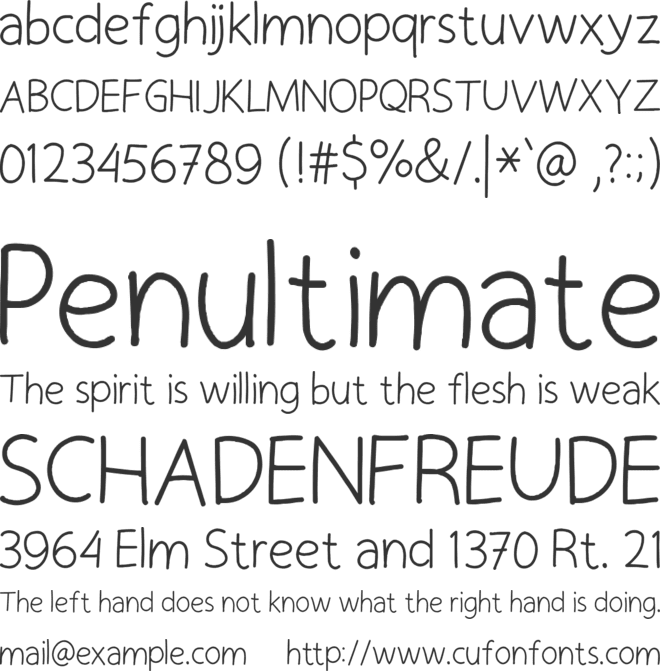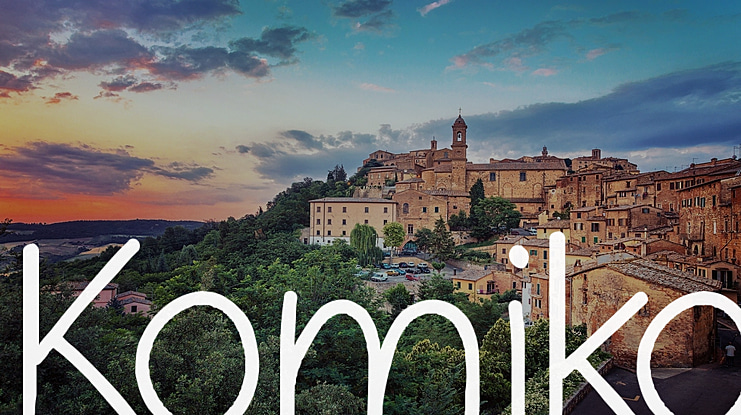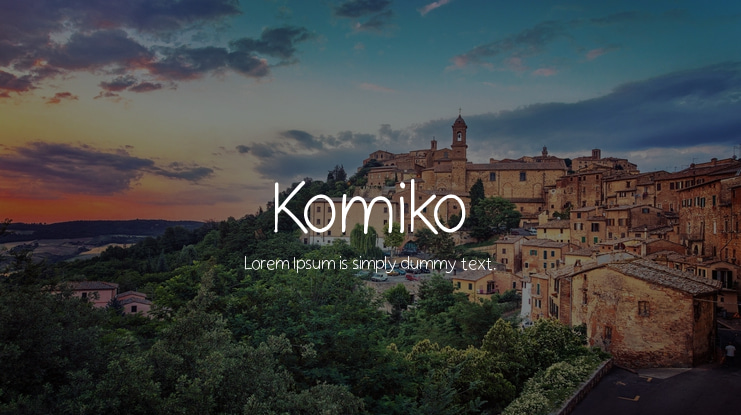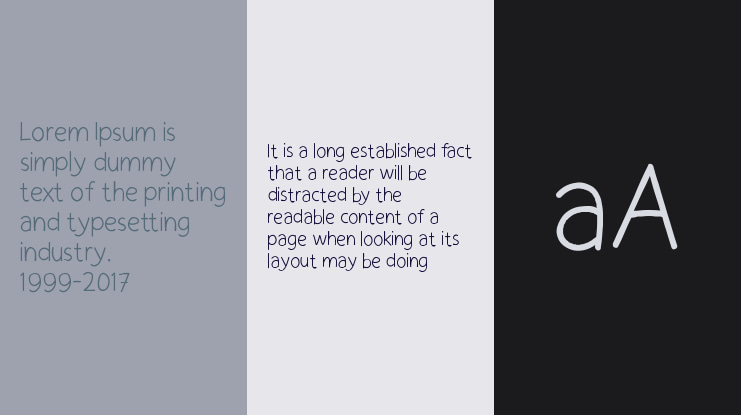
Komiko Font
Introducing Komiko, a cute comic font that will make your day more cheerful. This font is perfect for you who find a cute hand drawn font. Enjoy Komiko!